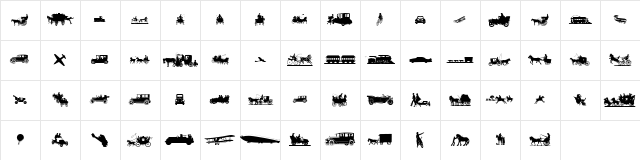
Transportation Dings Regular Free Font
Transportation Dings Regular
Transportation Dings Family
Complete Transportation Dings Regular glyph index. Displaying only characters natively supported by Transportation Dings Regular font.
Design Context for Transportation Dings
Transportation Dings brings high-energy athletic personality to the page - its confident, muscular forms are built for impact.
Pro Tip: Use Transportation Dings in all-caps headlines where its athletic energy can fully express itself. Pair with a solid, simple sans for supporting text.